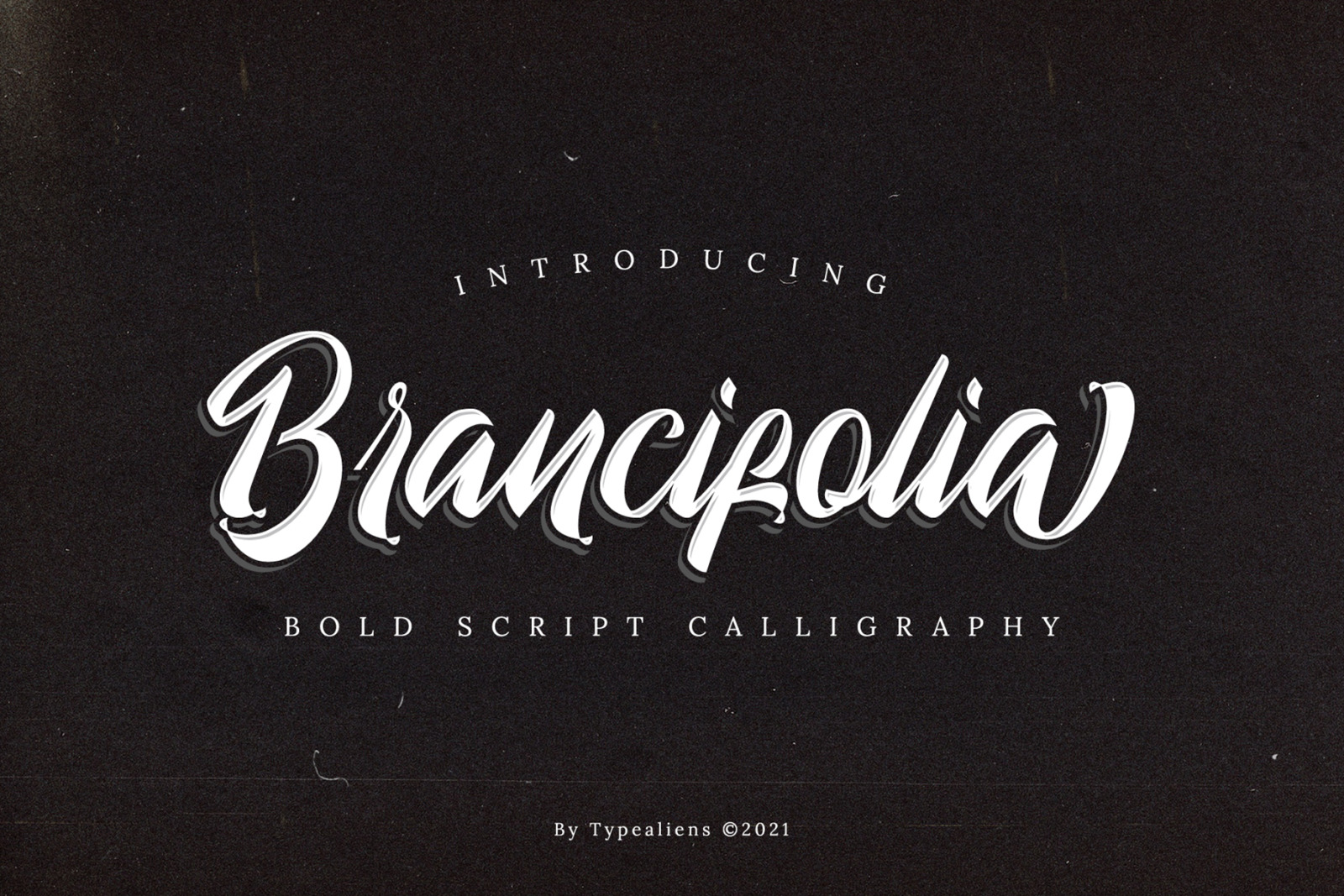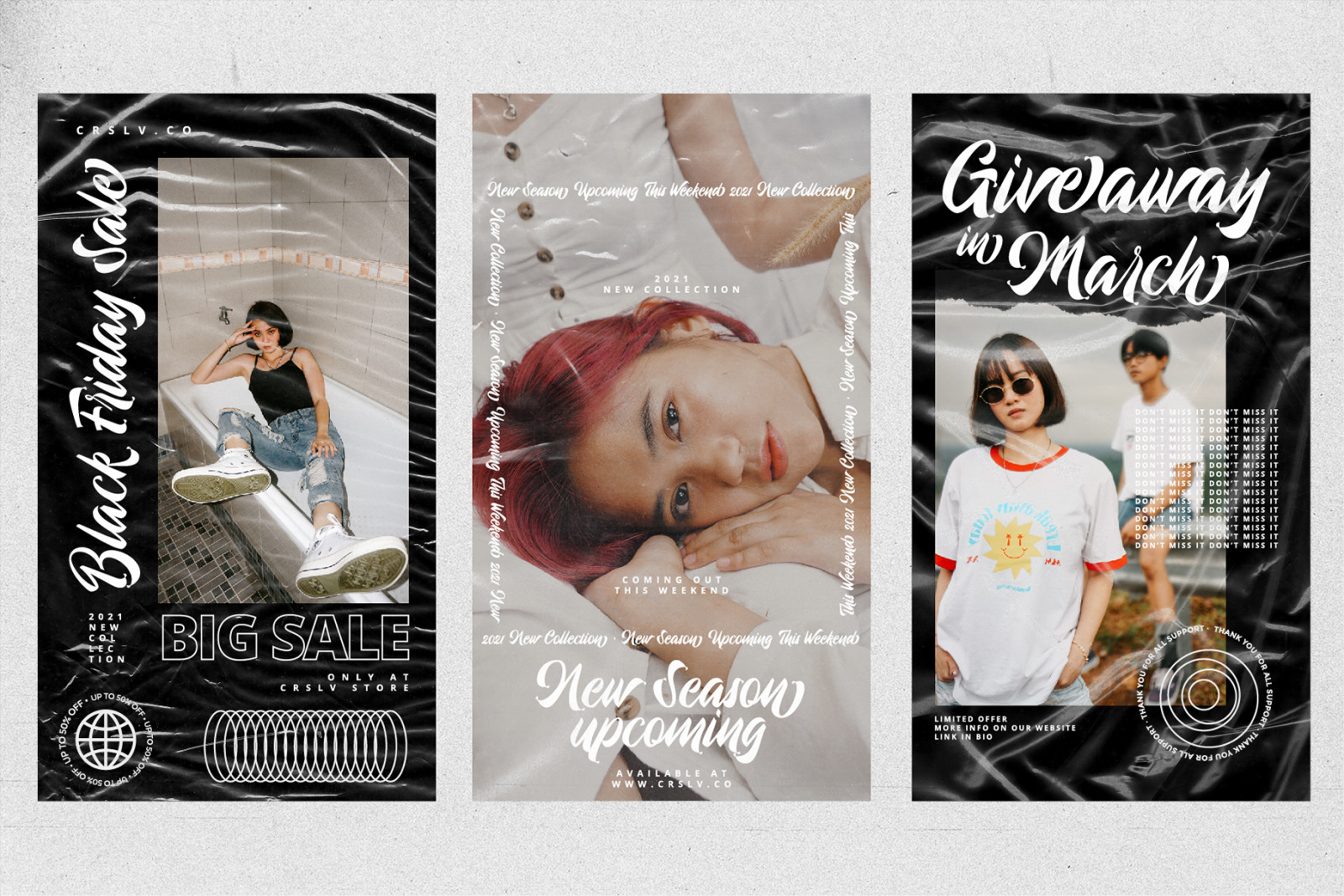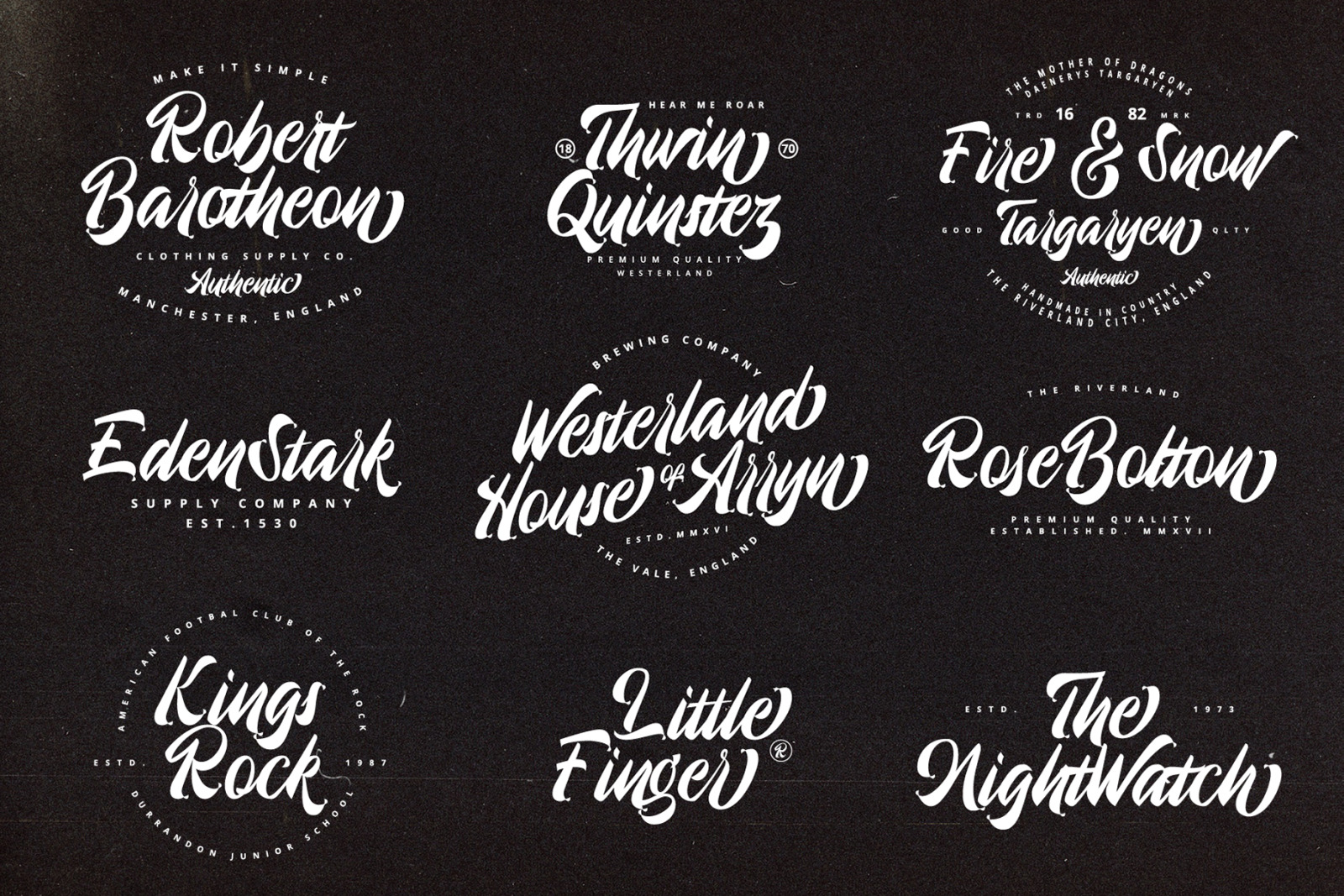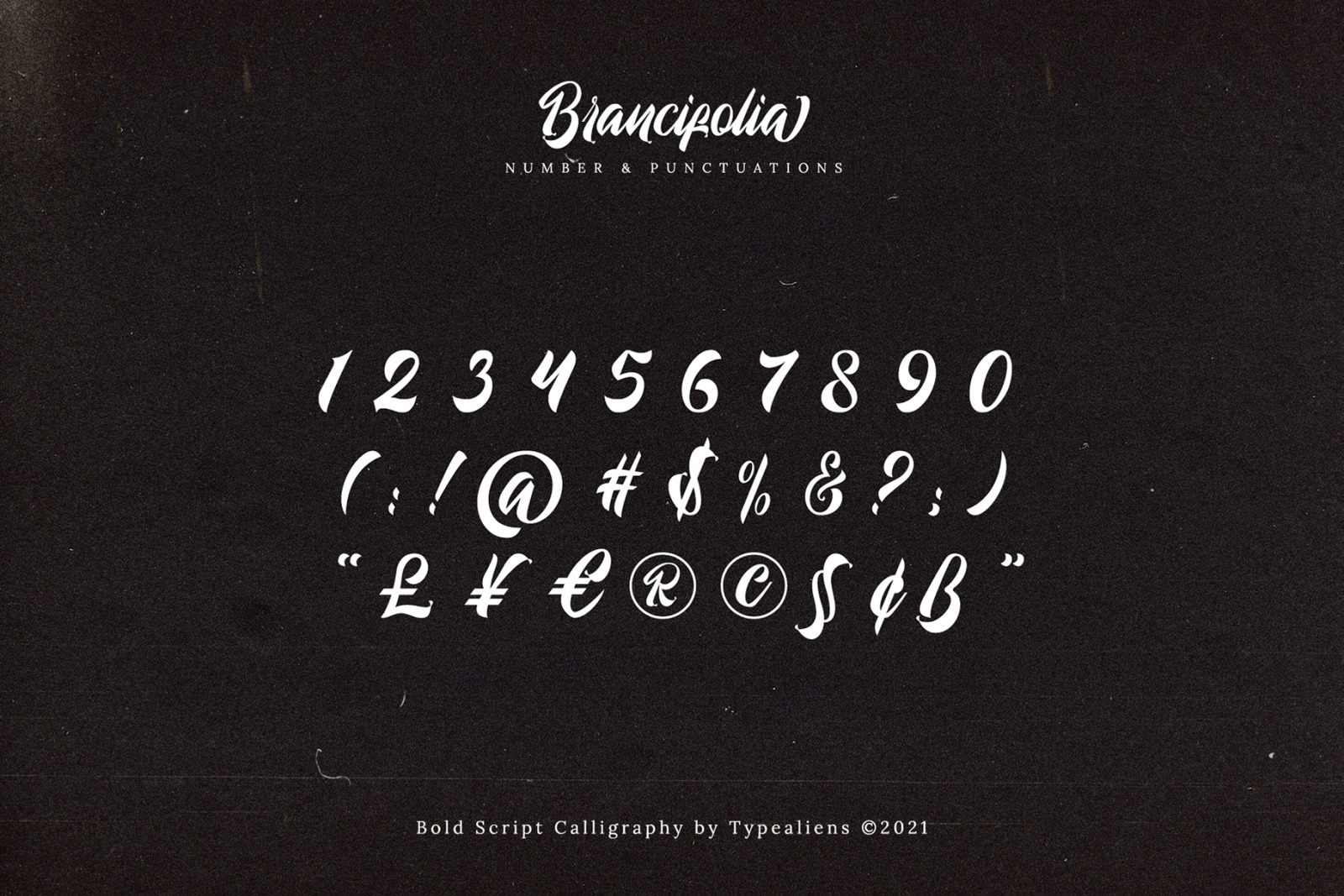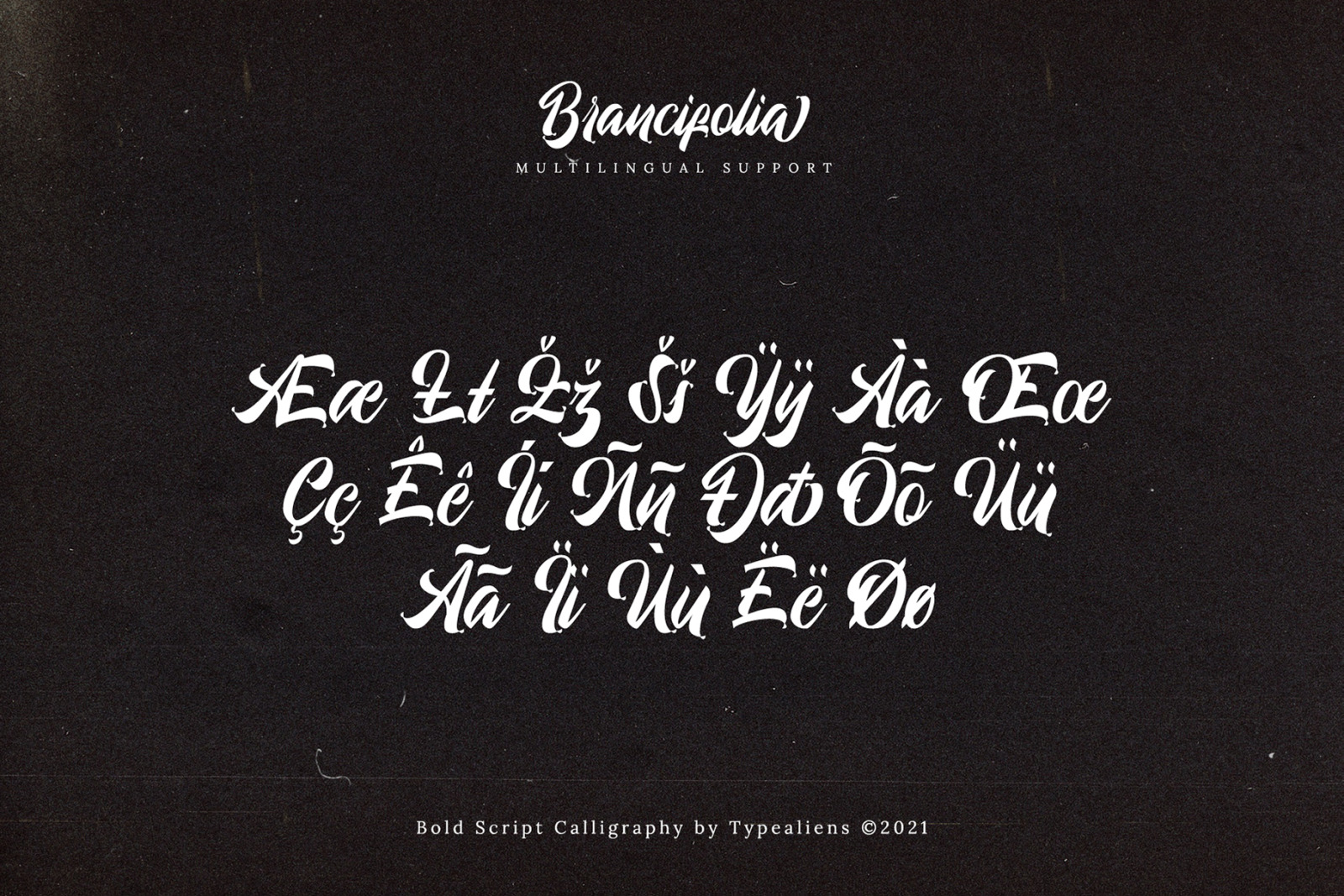
Brancifolia Font
BRANCIFOLIA is a bold script font, with a unique feature at the end of the stroke. The font is very beautiful and has a strong character when you make it a headline, logo, or packaging design, both on food and clothes.
Apart from Uppercase, Lowercase, Numerials and Punctuations, Brancifolia also has several ligatures and character alternatives.